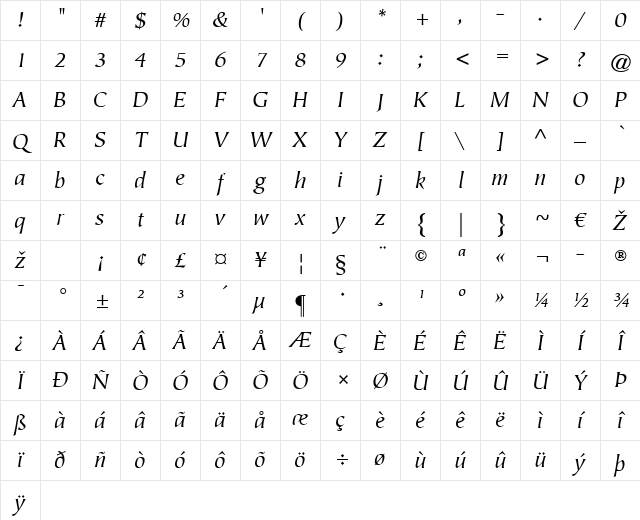
Tiepolo LT Book Italic
Design Context for Tiepolo LT Book
Tiepolo LT Book is a composed and adaptable typeface that performs quietly and consistently across a wide range of design contexts. The slanted form adds forward momentum and visual energy. Its slender proportions lend an understated elegance to any composition.
Pro Tip: Use Tiepolo LT Book for emphasis, pull quotes, and subheadings where its slanted energy can add rhythm to the layout.